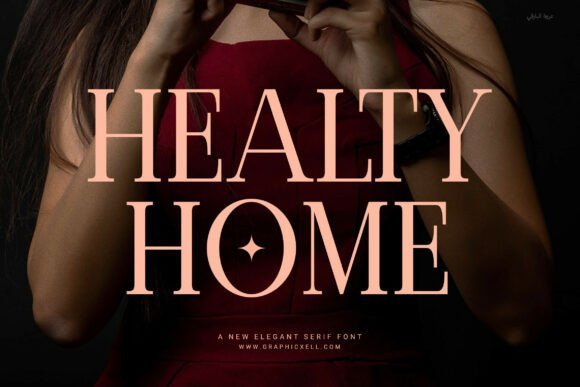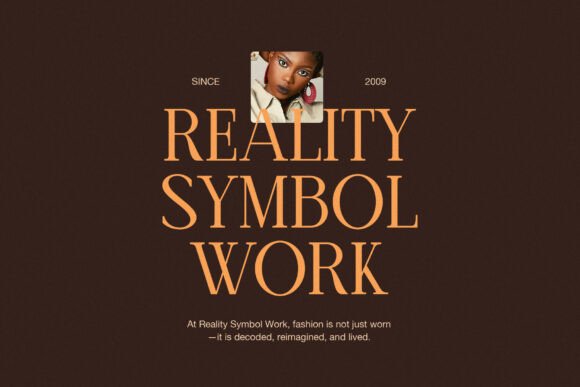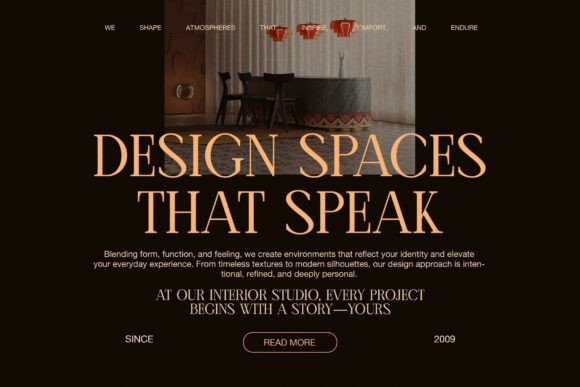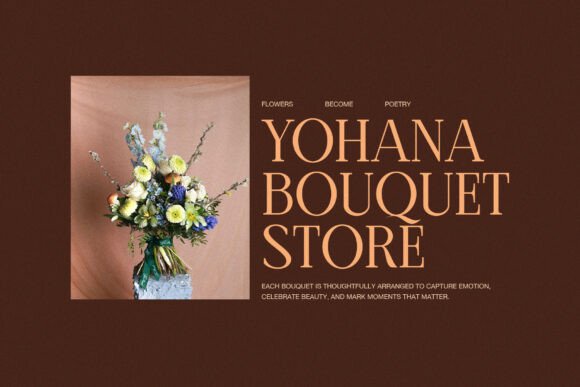
Give Your Brand a Touch of Elegance with Healty Home Font
Have you ever stared at a blank page, struggling to find the perfect font to bring your design to life? You’re not alone. We’ve all been there, trying to convey the essence of our brand through the perfect combination of letters and typography. But what if you could have a trusted companion to guide you through this creative process?
Meet Healty Home Elegant Serif Font, a modern serif font designed to add a touch of elegance to your branding. With its smooth and balanced letters, this font is perfect for creating clean and professional designs that make a lasting impression. Whether you’re working on a logo, website, magazine, or product label, Healty Home Font is the perfect tool to help you achieve your design goals.
As a designer, you know how valuable a versatile font can be. That’s why Healty Home Font is a must-have in your design arsenal. Its special ligatures and stylish design make it a smart tool that adds polish to every design, helping you stand out in a crowded market.
Key Features of “Healthy Home Font”
- Unique Characteristics: The font features a clean and modern design, with a focus on simplicity and readability. It includes a range of weights and styles, from light to bold, to cater to various design needs.
Design Review: Healthy Home Font
Overall, I’m impressed with the Healthy Home Font. It has a clean, modern aesthetic that’s perfect for health and wellness-related content. The font is highly legible, making it ideal for body text. Here are some of its standout features:
- ✨ Great legibility: The font is easy to read, even at smaller font sizes.
- ✨ Versatile: Healthy Home Font comes in a range of weights, making it suitable for various design applications.
- ✨ Modern feel: The font’s sleek, contemporary design makes it perfect for modern health and wellness brands.
- ⚠️ Limited character set: The font doesn’t include a comprehensive character set, which may limit its use in certain languages.
- ⚠️ Not ideal for headings: While the font is great for body text, it may not be the best choice for headings due to its simplicity.
Overall, I think Healthy Home Font is a solid choice for health and wellness brands. Its modern design and high legibility make it a great option for body text. However, it may not be the best choice for brands that require a more comprehensive character set or a more dramatic heading font.
Getting the Most Out of Healthy Home Font
Use Healthy Home Font for health-related projects, such as creating infographics about nutrition, fitness, or wellness. It’s also suitable for branding and logo design for health-related businesses.
Healthy Home Font is commonly used for:
– Health and wellness websites and blogs
– Fitness and nutrition apps
– Health-related logo design and branding
– Infographics about healthy living and nutrition